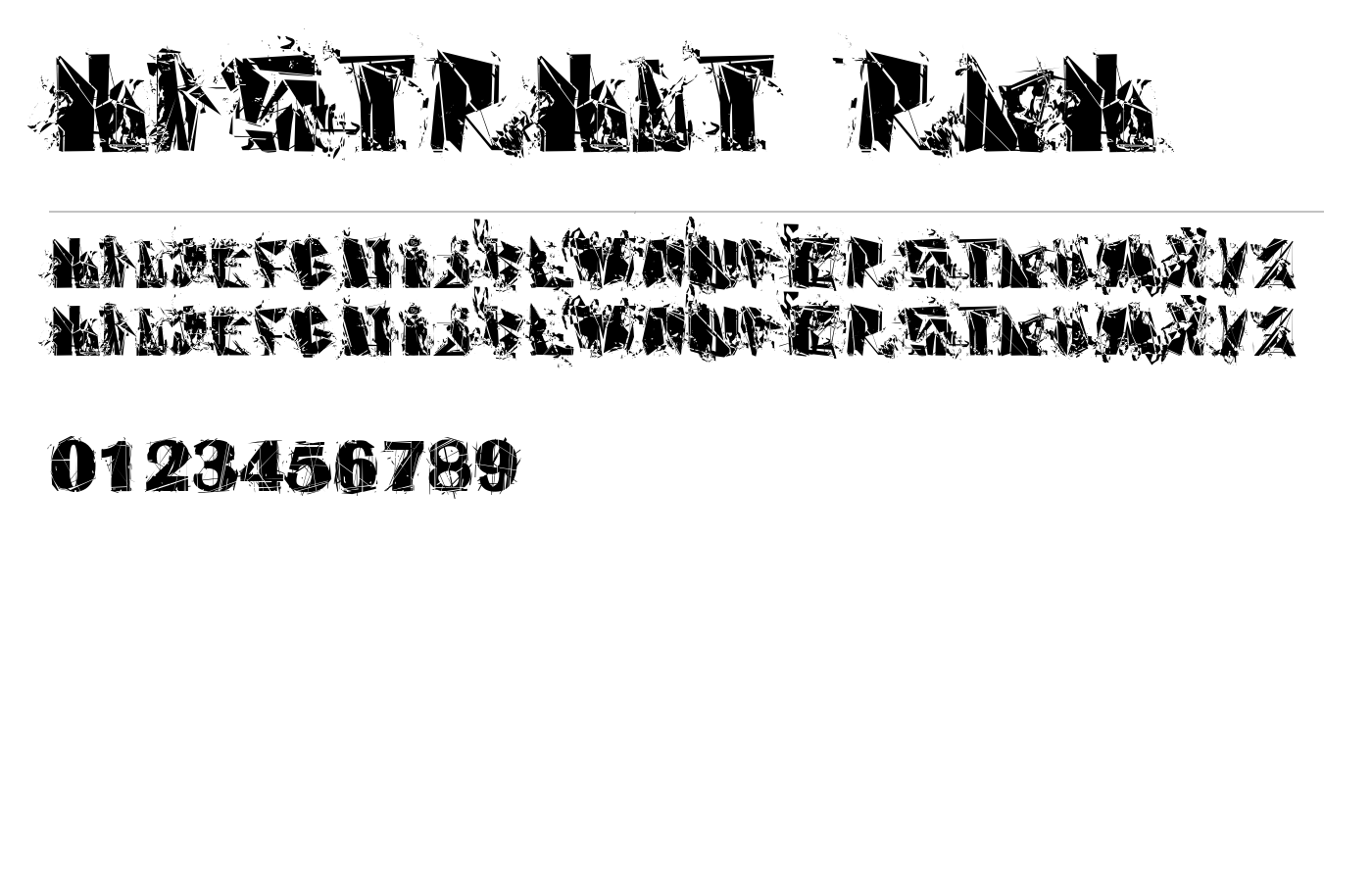
Abstract Rua is a bold, highly stylized sans serif display font characterized by its fragmented, distressed texture that gives it an edgy, chaotic look. Its dense, wide letterforms with uneven, jagged strokes create a striking visual impact best suited for attention-grabbing headlines, posters, and modern, urban-themed branding. This font conveys a raw, rebellious personality, making it ideal for projects that want to exude energy and unconventional style.
Abstract Rua Font